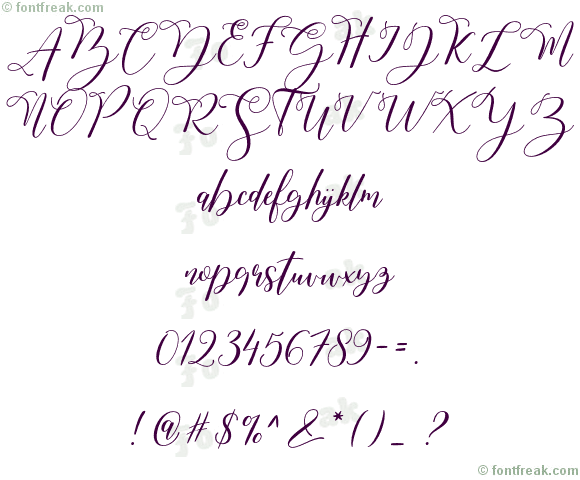
Mastura-Regular
Mastura-Regular, designed by Aqeela Studio, is a stunning script font that exudes elegance and sophistication. This font is characterized by its fluid, hand-drawn style that captures the essence of traditional calligraphy while remaining accessible for modern design needs. With its moderate stroke weight and gentle contrast, Mastura-Regular offers a balanced visual appeal that is both inviting and stylish. The graceful curves and elegant swirls in the letters create a sense of movement, making it a perfect choice for projects that aim to convey warmth and personality.
This versatile font is particularly well-suited for a variety of design applications. It shines in wedding invitations, where its romantic flair can enhance the overall aesthetic of the event. Additionally, Mastura-Regular is an excellent choice for crafting eye-catching movie posters, giving a sense of drama and intrigue. Restaurant menus can also benefit from its chic and stylish appearance, inviting diners to enjoy a unique culinary experience. Furthermore, content creators can utilize this font in branding materials and social media graphics, helping their work stand out in a crowded digital landscape.
Targeted towards graphic designers, small business owners, and content creators, Mastura-Regular appeals to those who seek to add a touch of elegance to their projects without sacrificing readability. It offers a unique blend of artistry and functionality that is hard to find in many fonts.